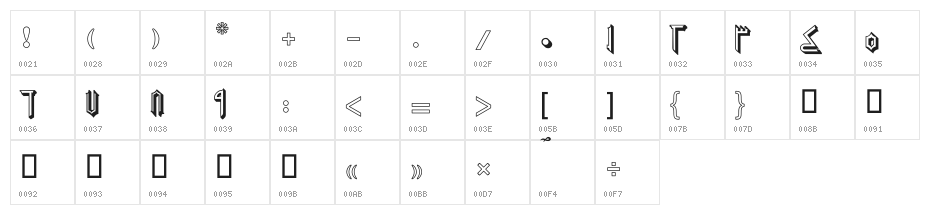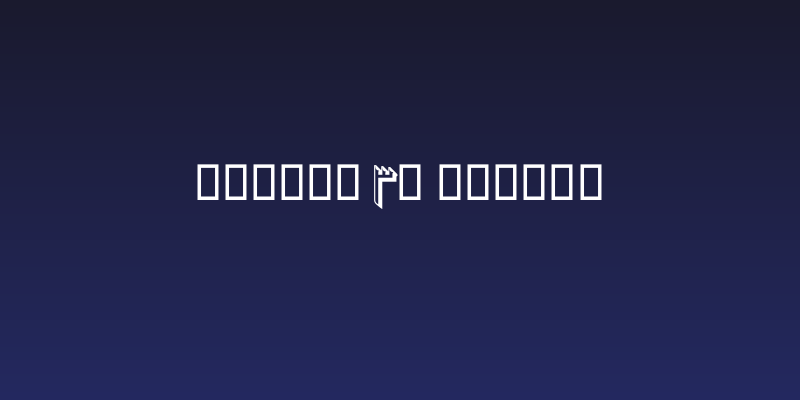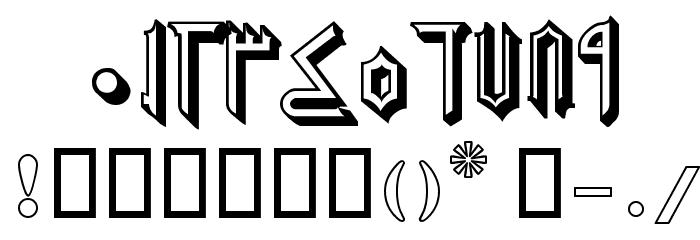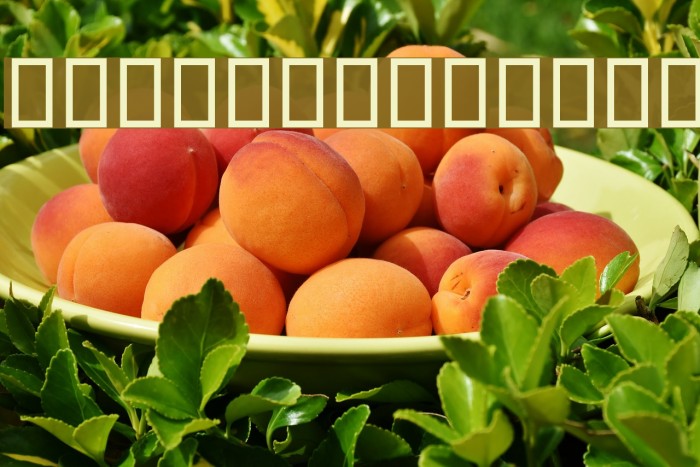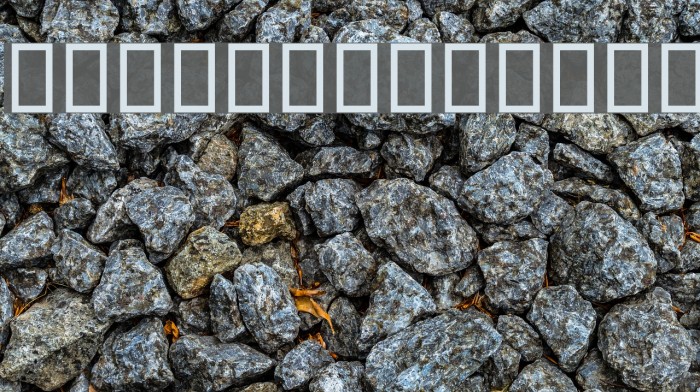
Kohnah 3D Shadow Font
Kohnah 3D Shadow Description
This font features a bold and striking 3D shadow effect, giving each character a sense of depth and dimension. The design is highly geometric, with sharp angles and clean lines that create a futuristic and edgy appearance. The uppercase and lowercase letters maintain a consistent style, with the shadow effect enhancing the overall visual impact. The numbers and special characters are crafted with the same attention to detail, ensuring a cohesive look across all elements. This font is perfect for projects that require a modern and dynamic aesthetic, making it ideal for headlines, posters, and branding materials.
| Use Case | Headlines, Posters, Branding |
| Proposed Projects | Perfect for use in headlines, posters, branding, and any project requiring a modern, dynamic look. |